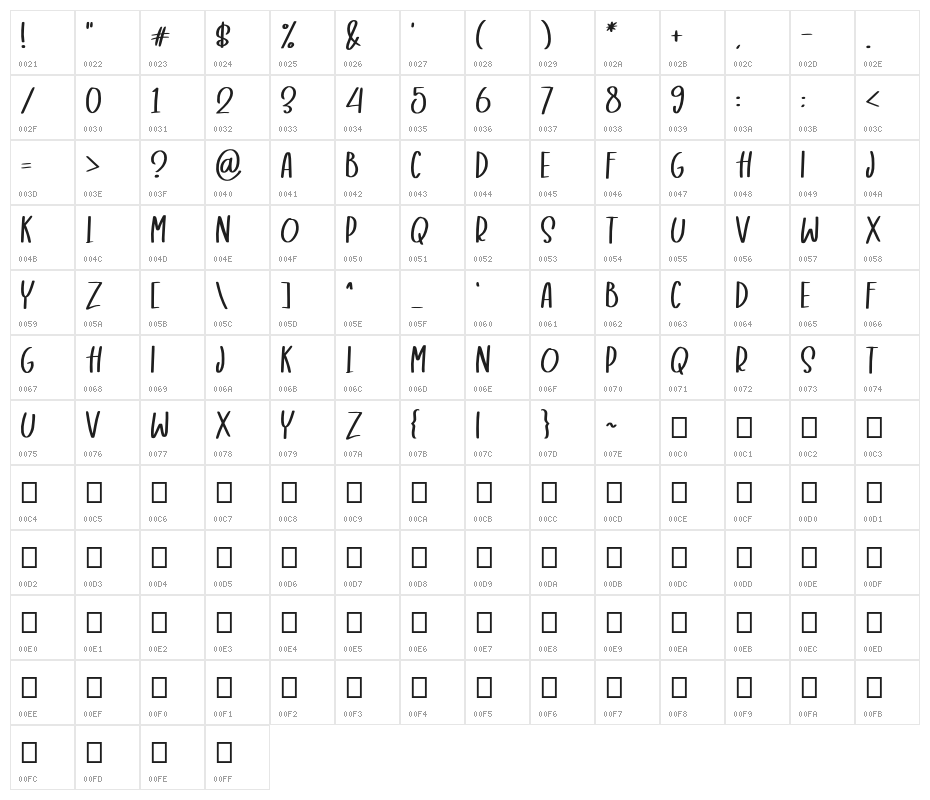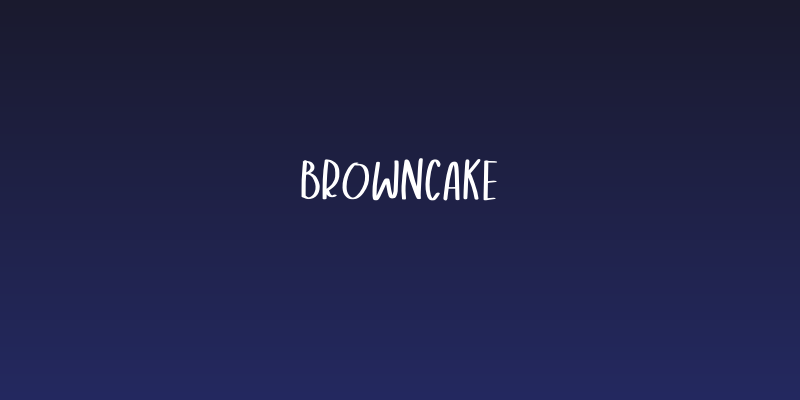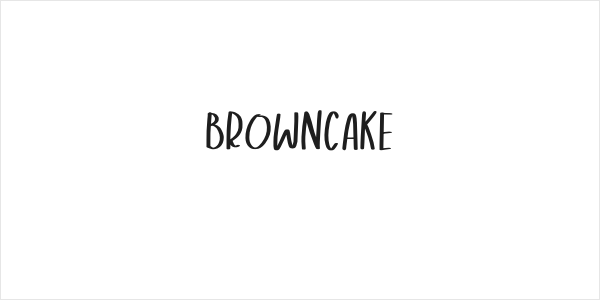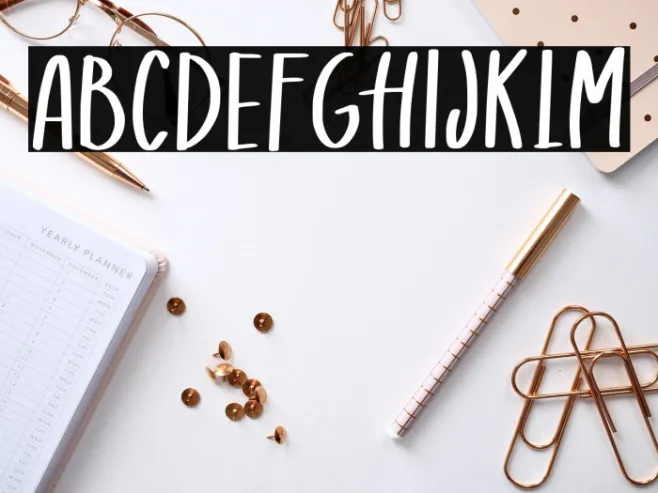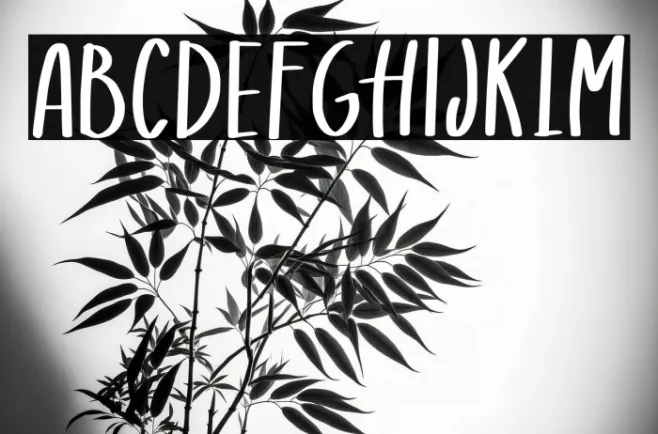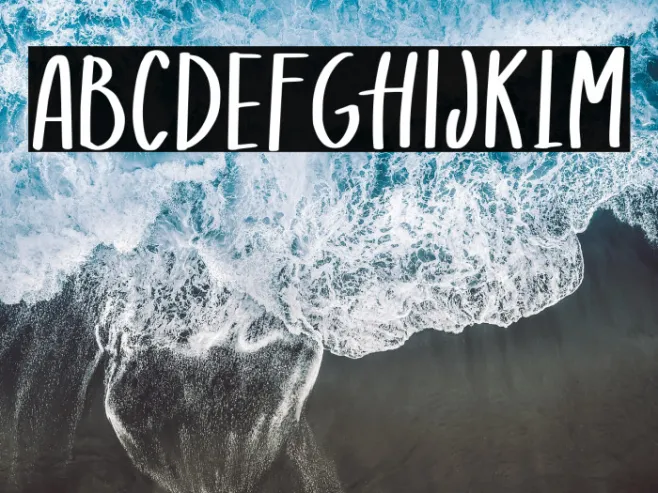
Browncake Font
Browncake Description
This font features a playful and casual handwritten style, characterized by its smooth curves and slightly irregular strokes. The uppercase and lowercase letters maintain a consistent flow, giving it a friendly and approachable appearance. The numbers and special characters are designed to complement the overall style, ensuring readability and coherence. The font's informal nature makes it suitable for projects that aim to convey a sense of warmth and personality.
| Proposed Projects | Ideal for greeting cards, invitations, personal branding, and social media graphics. |